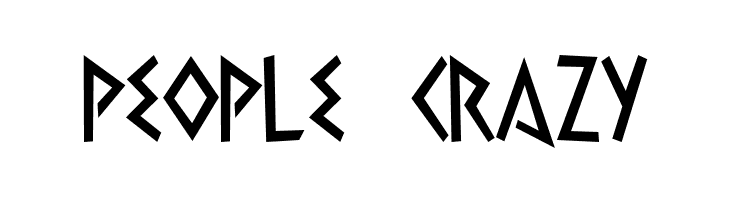
rainday Font
- Font: rainday
( Fonts by Furdzville - Brian Powers )
A bold, angular font with sharp edges and geometric shapes, perfect for modern designs.